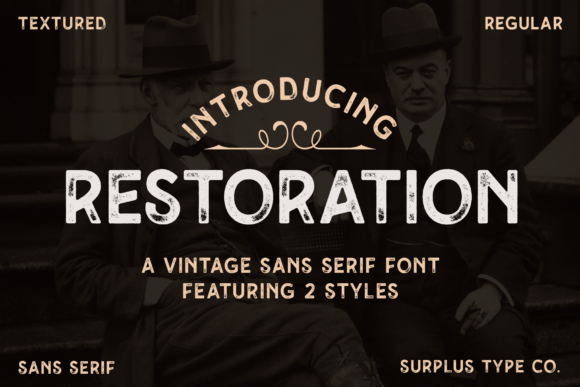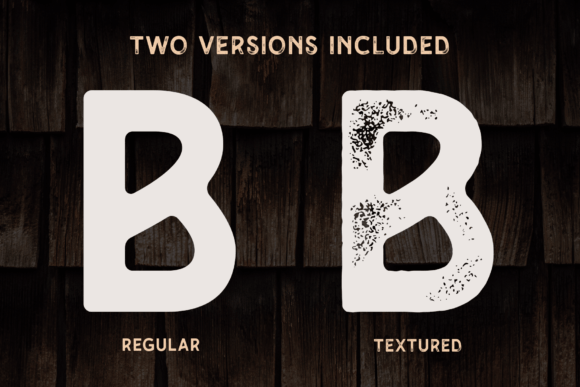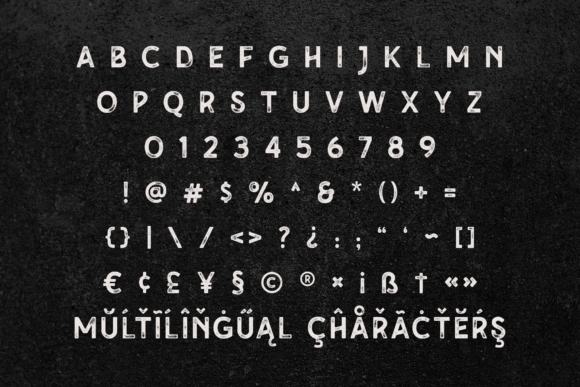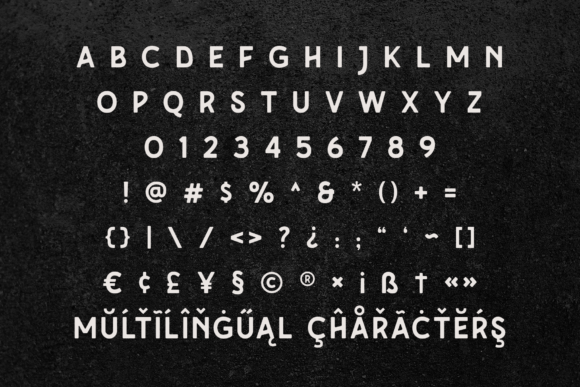
Restoration Font: Rustic Vintage Sans Serif for Logo Design & Branding
About the Restoration Font
Step up your design game with Restoration Font, a font that exudes confidence and style. Restoration is a two style sans serif font with a rustic vintage aesthetic. Its angled bars give it a unique appearance and sets it apart from other vintage fonts.
You’ll get a textured version and a clean version, so you’ll be ready for any project.
This vintage font is great for logos & branding, titles, web design, marketing, advertising & much more!
Restoration’s rustic vintage aesthetic makes it ideal for headlines, logos, and short-form text in branding materials and posters. The textured version adds a handcrafted feel perfect for packaging or artisanal products. However, its unique angles and textural elements make it less suitable for body copy or UI elements requiring high readability.
Its bold and slightly rebellious personality pairs well with clean sans-serif fonts like Helvetica Neue for a balanced contrast, or a more delicate script like Cormorant Garamond for a touch of elegance. For a vintage-inspired pairing that maintains legibility, consider a classic serif like Playfair Display.
The clean version offers more versatility for web design, but maintaining sufficient point size is crucial for optimal readability even in digital applications. Avoid using it for extensive blocks of text.